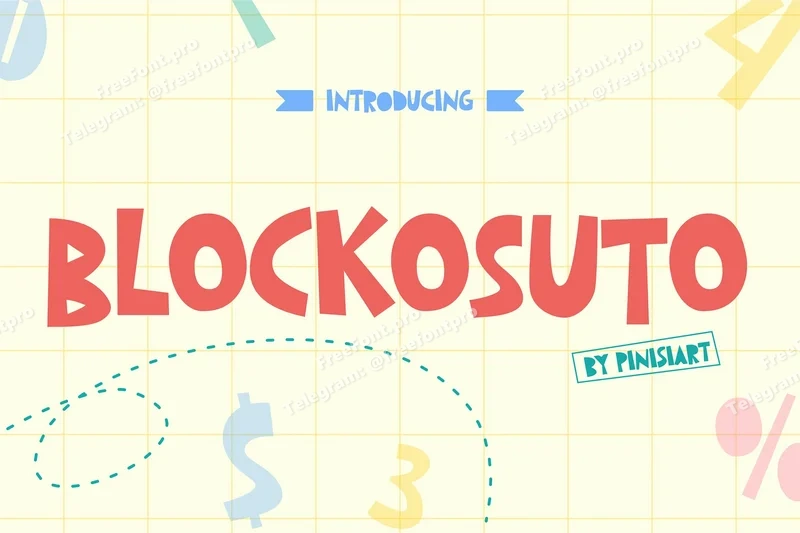
Blockosuto – Playful Kids Display Font
Blockosuto is a playful kids display typeface with geometric letterforms, bouncy flow, and colorful energy. Its bold shapes and rounded edges create a joyful, approachable vibe that instantly sparks creativity and invites children to explore. Perfect for educational books, kids’ products, and fun branding, Blockosuto balances clarity with personality, making every word feel like part of a game.
Whether you’re designing a school poster, children’s birthday invitation, toy packaging, or learning app, Blockosuto captures attention with its vibrant, kid-friendly charm. Its structured yet playful proportions keep it easy to read while staying engaging, making it ideal for teachers, illustrators, startups, and kids’ content creators who want their projects to stand out with energy, fun, and personality.
Key Features :
Playful & Energetic: Geometric shapes with a bouncy flow make it fun and approachable.
Kid-Friendly Readability: Clear, bold letters ensure easy recognition for young readers.
Versatile Use: Great for posters, games, learning apps, packaging, books, and branding.
Eye-Catching Headlines: Makes every title joyful, engaging, and impossible to ignore.
Creative Design Solution: Brings fun storytelling into classrooms, events, and brands.